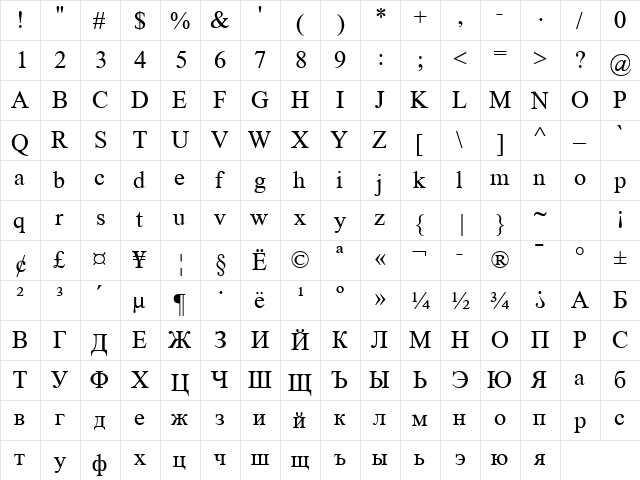
Time Roman Normal
Design Context for Time Roman Typeface
Time Roman offers clean, dependable letterforms without strong stylistic allegiance, making it a practical choice for designers who need flexibility.
Pro Tip: Pair Time Roman with a font of contrasting weight or personality to build a more expressive typographic hierarchy.